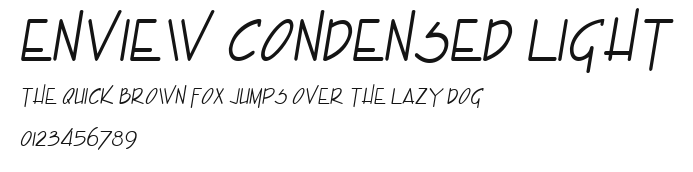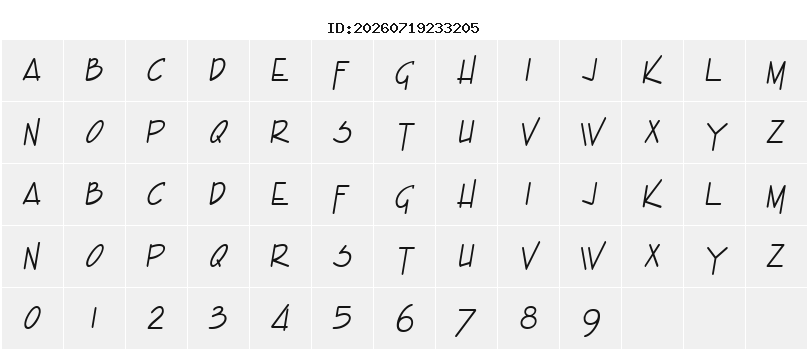
Enview Condensed Light Preview
• Font Name: Enview Condensed Light
• Font Style: BoldItalic
• Font ID: Altsys Fontographer 4.1 Enview Condensed Light BoldItalic
• Full Font Name: Enview Condensed Light BoldItalic
• Version: Altsys Fontographer 4.1 1/31/95
• PostScript Name: EnviewCondensedLightBoldItalic
• Character Count: 225
About Enview Condensed Light.ttf
Enview Condensed Light.ttf is a modern, elegant sans-serif font designed for ultimate readability and visual harmony. Perfect for branding, headlines, web design, and print materials.